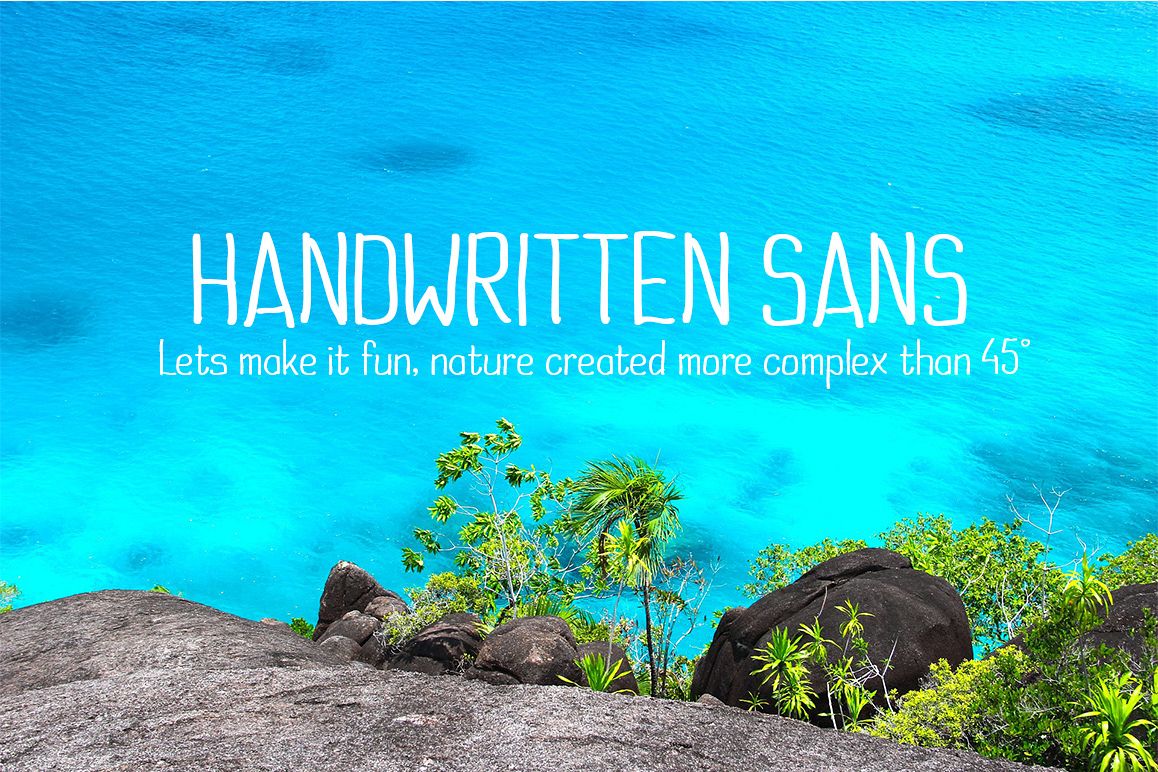
Handwritten Sans
Introducing cute and playful handwritten sans serif font.This font has not too rough style, so it is suitable for semi formal and playful scene.
This font has 270 glyphs with complete punctuation, and diacritics for basic Latin language.